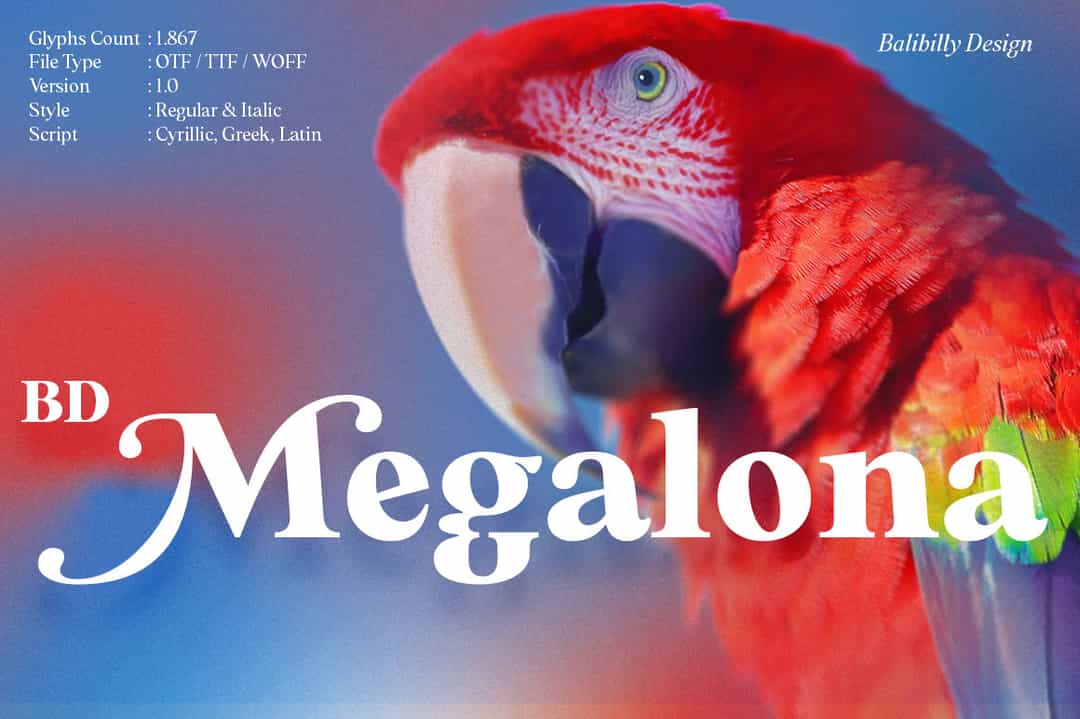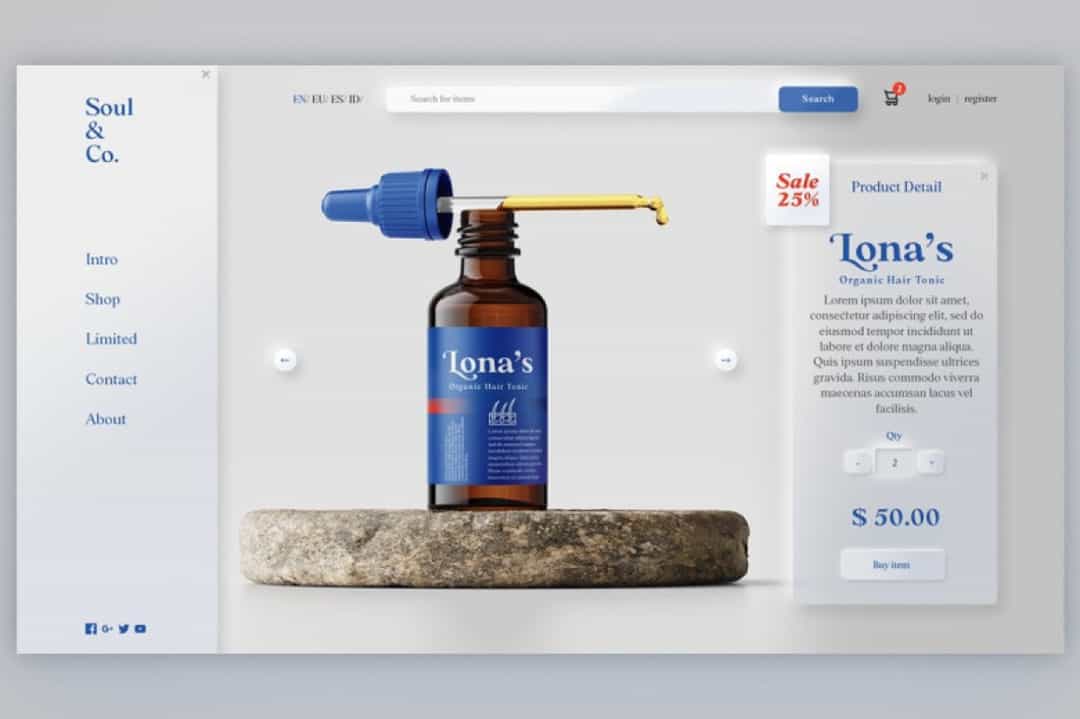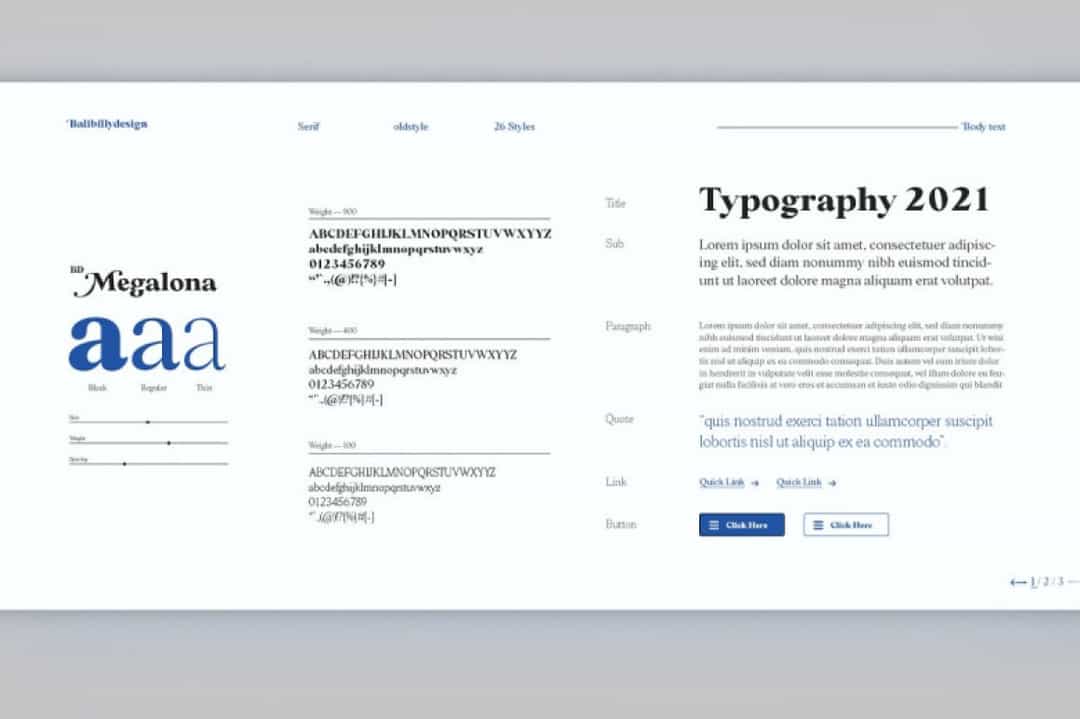
Discover BD Megalona Font, part of the Serif collection—a versatile and unique font perfect for adding a personal touch to your projects. Download it for free and enjoy crafting designs with style, from invitations to social media posts. This font is available exclusively for personal use, giving you the freedom to create without limits. Unlock your creativity with BD Megalona Font today!
BD Megalona Serif Font offers various luxurious-inspired options in symmetrical layouts with subtle variations that give off luxurious vibes, making this font suitable for use in typographic projects of all kinds. This font’s fashionable designs add style to typographic projects while its solution set provides problem solvers ideal for body text as well as high-impact headlines; and its Open type variant looks absolutely beautiful logos, branding websites, magazines etc.